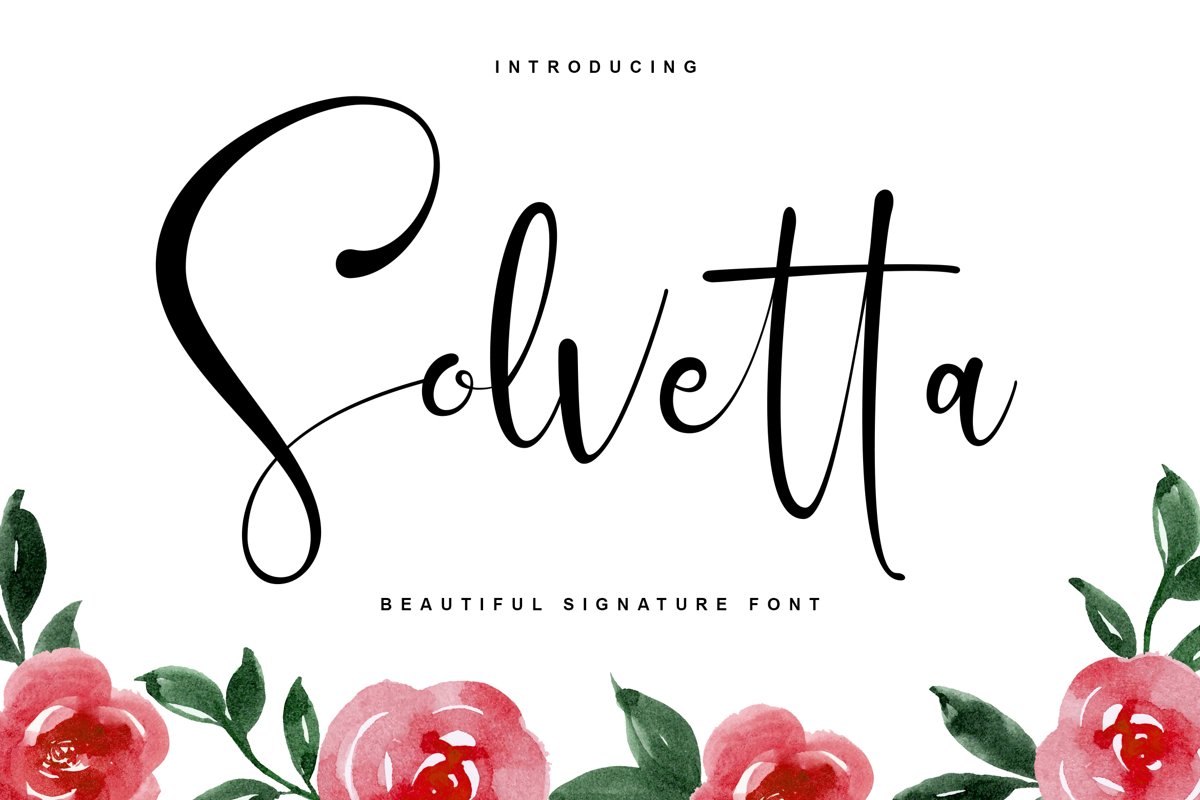
Solvetta - Beautiful Signature Font
Solvetta
Hello friends! Today I'm going to introduce my newest font. This is my very first signature font creation, and I called it Solvetta. Solvetta has a lot of ligatures so it can make your creativity go wild. This font is perfectly suit for logo typography but it can also used for other brand needs.
Solvetta
is a font that you can use to make a logo for branding, typography
design, magazine or book cover, website header, product packaging,
invitation, quotes, t-shirt design, label poster and more.
Feature :
- Ton of glyphs (include Uppercase, Lowercase, Numerals & Punctuations, Stylistic Set, Ligature)
- Multilingual Language
Multilingual :
ÁÂÄÀÅÃÇÉÊËÈÍÎÏÌÐÑÓÔÖÒÕØÚÛÜÙẂŴẄẀÝŶŸỲÞŁ ß áâäàåãæçéêëèíîïìðñóôöòõøœúûüùẃŵẅẁýŷÿỳþł